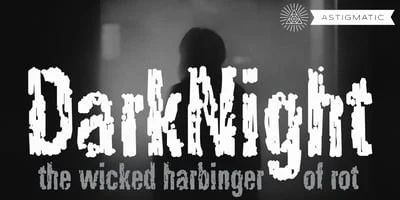
Dark Night AOE Font
Dark Night AOE Font is perfect for horror movies, gothic branding, dark themed entertainment, mystery novels, alternative music, haunted attractions, and atmospheric design projects. This dramatic typeface brings mysterious elegance and dark sophistication to nocturnal design applications.
Dark Night AOE Font is exciting because it masterfully captures the essence of midnight mystery with its bold, shadowy letterforms that convey dramatic intensity and gothic elegance while maintaining exceptional readability in dark atmospheric applications.
The Dark Night AOE Font family includes multiple weights and atmospheric variations that reflect the depth and mystery of nighttime aesthetics. This shadowy collection provides designers with dramatic options for creating memorable and hauntingly beautiful brand experiences.
Dark Night AOE Font offers designers access to a dramatically crafted typeface that embodies the power and mystery of the darkest hours. This atmospheric font features bold letterforms with shadowy details that create immediate associations with gothic elegance, mysterious atmosphere, and dramatic storytelling. The typeface showcases strong character presence and dark aesthetics that enhance horror and mystery communications while maintaining professional functionality. Its nocturnal character makes it particularly suitable for entertainment brands and atmospheric projects that require typography capable of conveying mystery, drama, and gothic sophistication. Dark Night AOE Font delivers exceptional atmospheric impact for applications where conventional fonts lack the dramatic presence and mysterious character necessary for dark themed communications. The font's gothic appeal and shadowy aesthetic make it an essential tool for designers working on projects that require typographic expression of mystery, darkness, and atmospheric drama that resonates with audiences seeking thrilling experiences and gothic beauty.